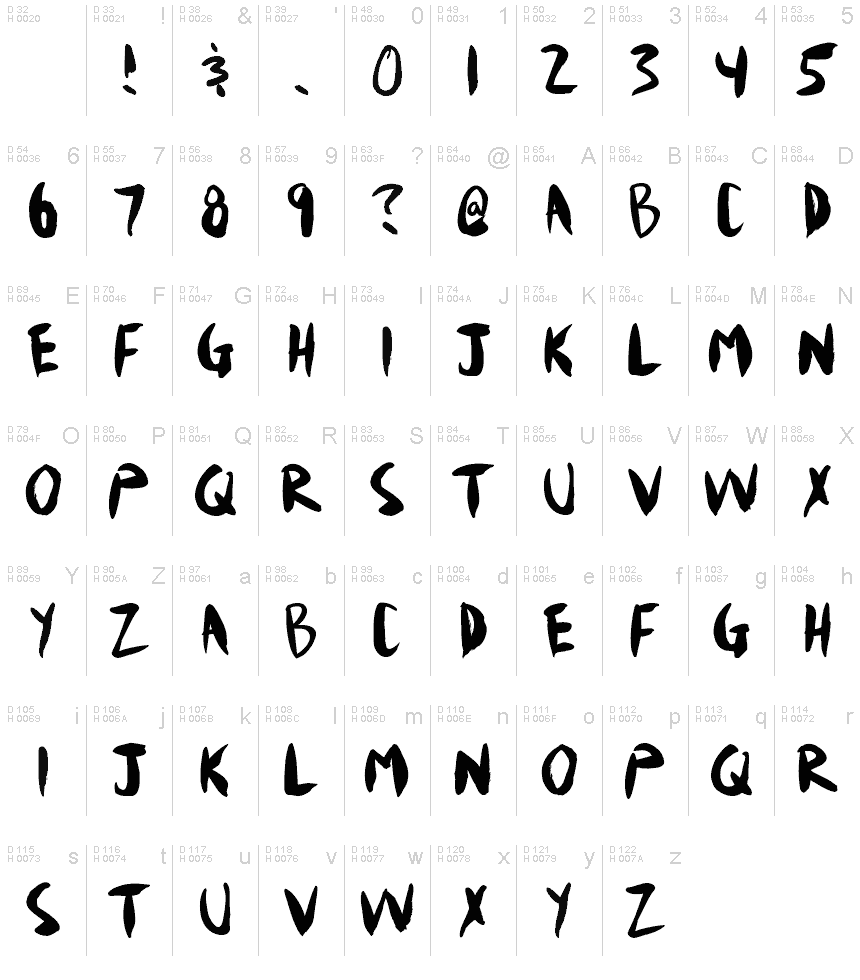
Mudshovel
Mudshovel is a bold, brush-style font that exudes raw power and rugged elegance. The dynamic, handwritten strokes convey a sense of movement and energy, making it an ideal choice for headlines, logos, and display text. The font's bold weight lends it a commanding presence, while its organic, imperfect nature adds a unique, artisanal touch. Mudshovel's versatility allows it to seamlessly transition between modern, industrial applications and more rustic, artisanal designs.
Its distinctive character can elevate a wide range of projects, from product packaging and editorial layouts to signage and branding.